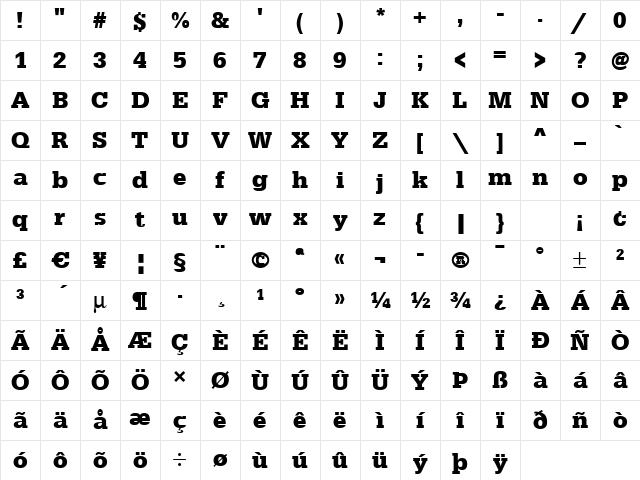
AnitaBecker Bold
Design Context for AnitaBecker
AnitaBecker is a composed and adaptable typeface that performs quietly and consistently across a wide range of design contexts. Its bold stroke weight gives it real presence on the page.
Pro Tip: Use AnitaBecker in both headline and body roles to test its range before committing to a single application.